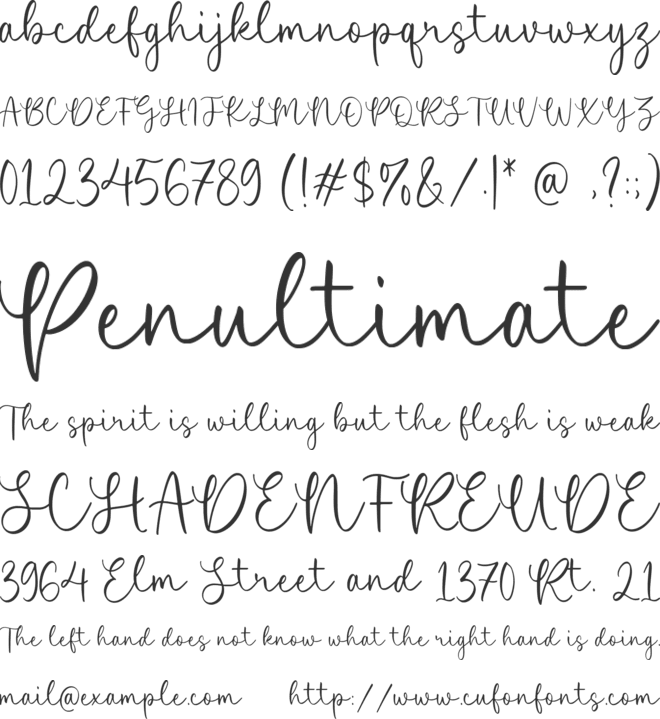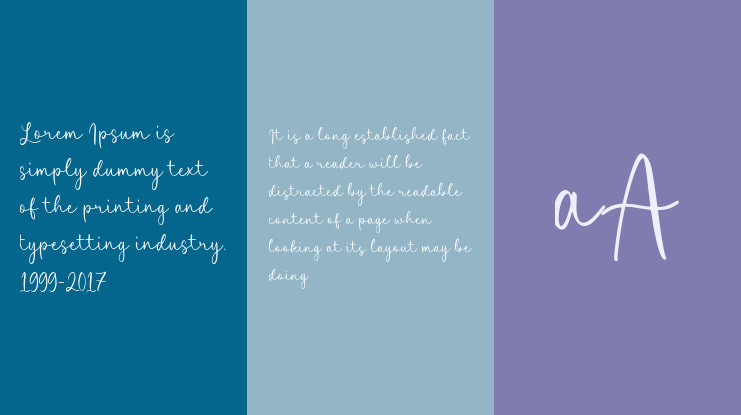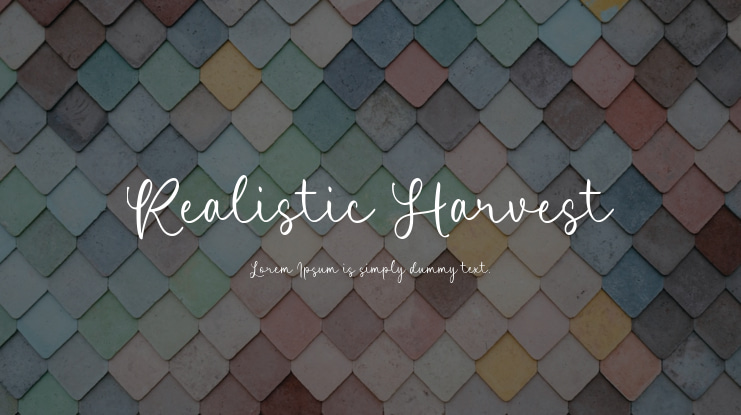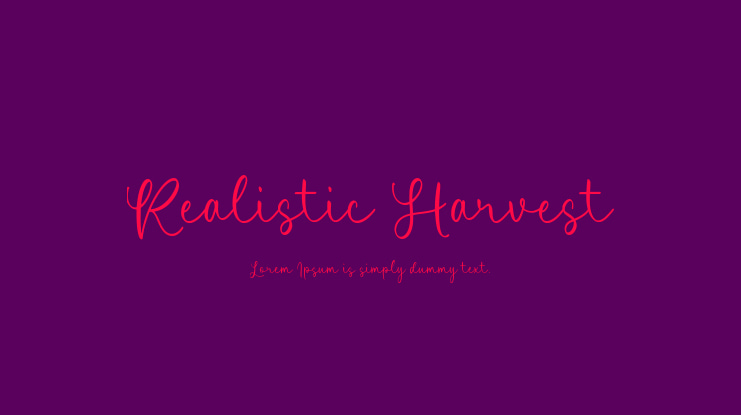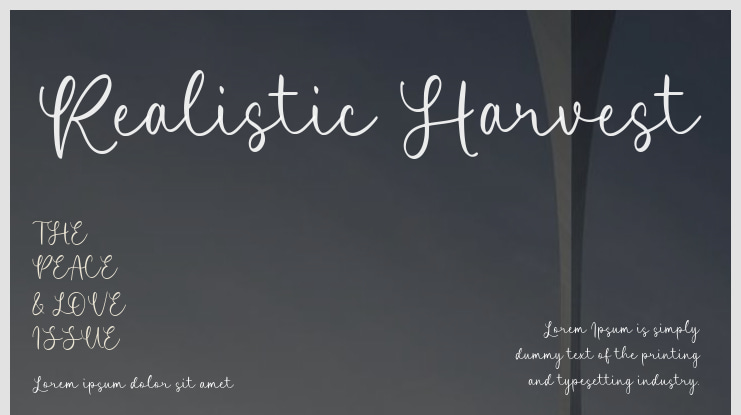
Realistic Harvest Font
Introducing Realistic Harvest, a stunning handwritten script font brought to you by Timurtype Studio. This font exudes elegance, with every curve telling a graceful story and every detail resembling a luxurious brushstroke. It's a visual symphony that embodies the art of beauty.
Key features of the Realistic Harvest font:
• A complete set of standard alphabets and punctuation marks.